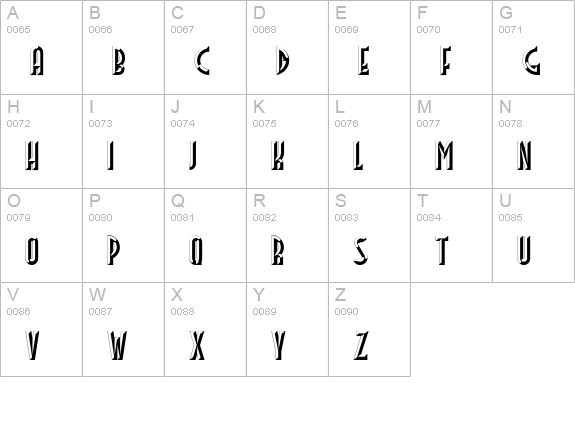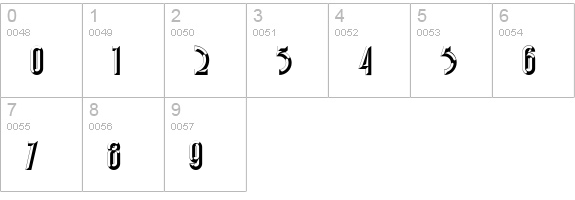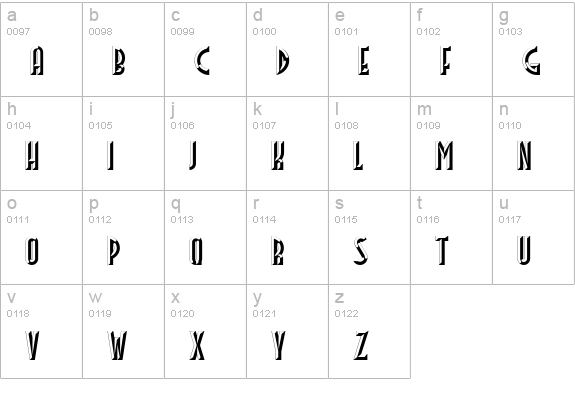
FacetsNF Font Details
Introducing FacetsNF, a mesmerizing font that is sure to captivate your audience with its unique and intricate design. Inspired by the beauty of faceted gemstones, this font brings a touch of elegance and sophistication to any project. With its sharp edges and precise lines, FacetsNF exudes a modern and contemporary feel, making it the perfect choice for logos, headlines, and branding materials. Its versatility allows it to be used in a variety of design styles, from minimalist to avant-garde. What sets FacetsNF apart is not only its stunning aesthetics but also its incredible attention to detail. Each character is meticulously crafted, ensuring that every curve and angle is flawlessly executed. This level of precision creates a visually striking text that is visually impactful and effortlessly eye-catching. And the best part? FacetsNF is available to download for free at FontsMarket.com. That's right, you can add this incredible font to your collection without spending a dime. Whether you're a professional designer or a creative enthusiast, having access to high-quality fonts at no cost is a dream come true. So why wait? Don't miss out on the opportunity to enhance your designs with the beauty and sophistication of FacetsNF. Download it today, absolutely free, at FontsMarket.com and let your creativity soar to new heights.